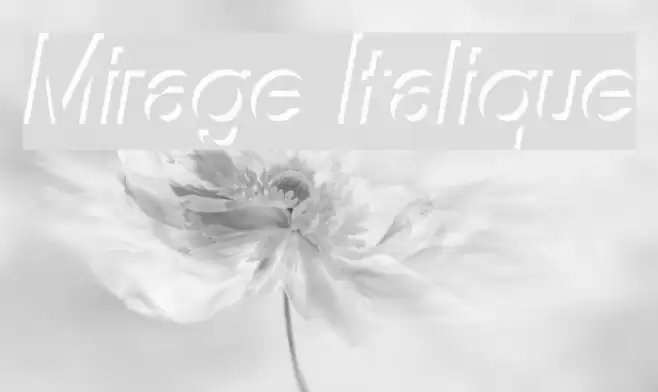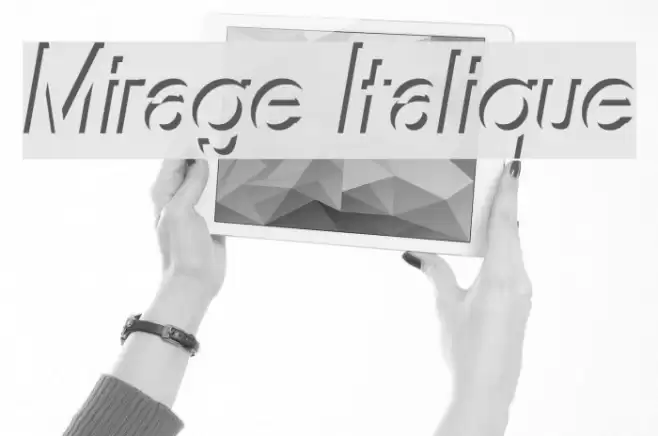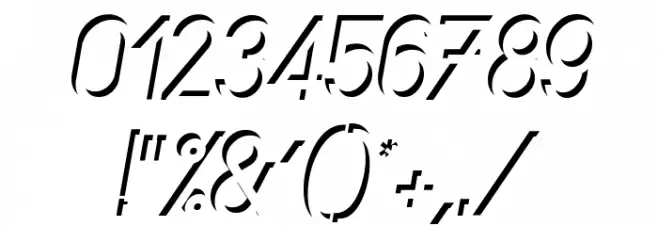
Mirage Italique Font
Mirage Italique Description
This font features a modern, italicized style with a distinct slant, giving it a dynamic and forward-moving appearance. The characters are sleek and elongated, with sharp edges and clean lines that create a sense of elegance and sophistication. The design incorporates a high contrast between thick and thin strokes, enhancing its visual impact. The spacing between characters is relatively tight, which contributes to its streamlined look. This font is well-suited for projects that require a contemporary and stylish aesthetic.
A modern, italicized font with high contrast and sleek, elongated characters from Uncategorized fonts.
- Proposed Projects: Ideal for fashion magazines, luxury branding, modern advertising, and dynamic logo designs.
- Character Spacing: Tight